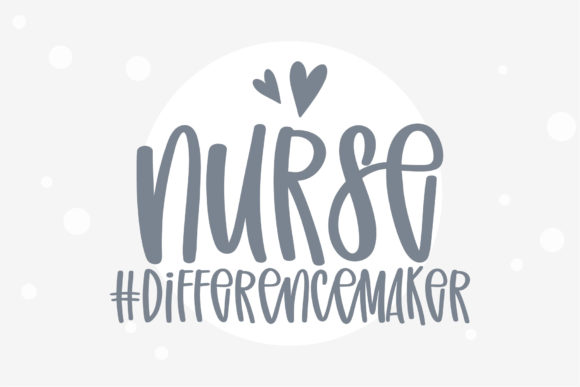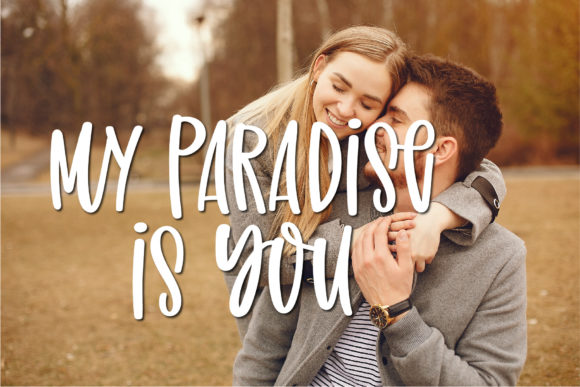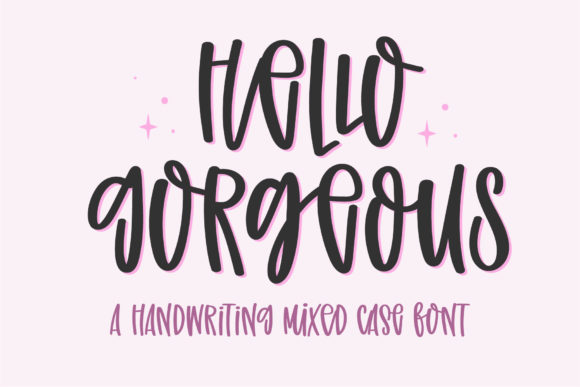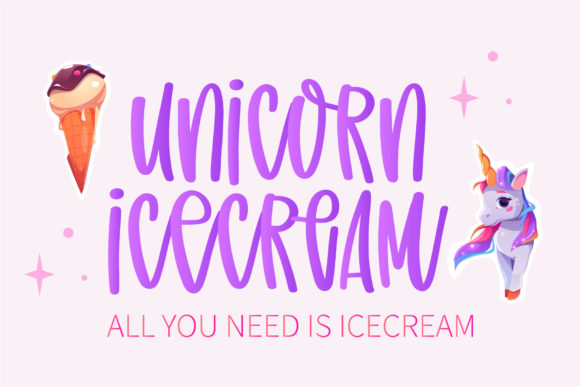
Hello Gorgeous Font: A Cute Handwritten Font for Cricut & DIY
About the Hello Gorgeous Font
Presenting Hello Gorgeous Font, a unique and stylish typeface that will make your work stand out. Hello Gorgeous is a cool, friendly, and informal handwritten font, that can be used for all chalkboard quotes or teaching material!
Its authentic look and feel will add a personal and realistic feel to your designs.
Hello Gorgeous Font is ideally suited for projects requiring a friendly and approachable aesthetic. It works exceptionally well in headlines, short-form text on social media, invitations, and packaging design for products targeting a younger demographic or emphasizing a handmade/artisan quality. Avoid using it for large blocks of body text or UI elements where readability is paramount; its informal nature can hinder legibility in extended passages.
Pairing Hello Gorgeous with a clean sans-serif like Open Sans for body copy creates a balanced and effective contrast. For a more playful feel, consider a geometric sans-serif such as Bebas Neue for accent text. A classic serif like Garamond could add sophistication if a touch of elegance is needed, tempering the font’s informality.
The font’s overall personality is best described as friendly and informal, with a touch of vintage charm. Its hand-drawn quality lends itself well to designs emphasizing authenticity and approachability.